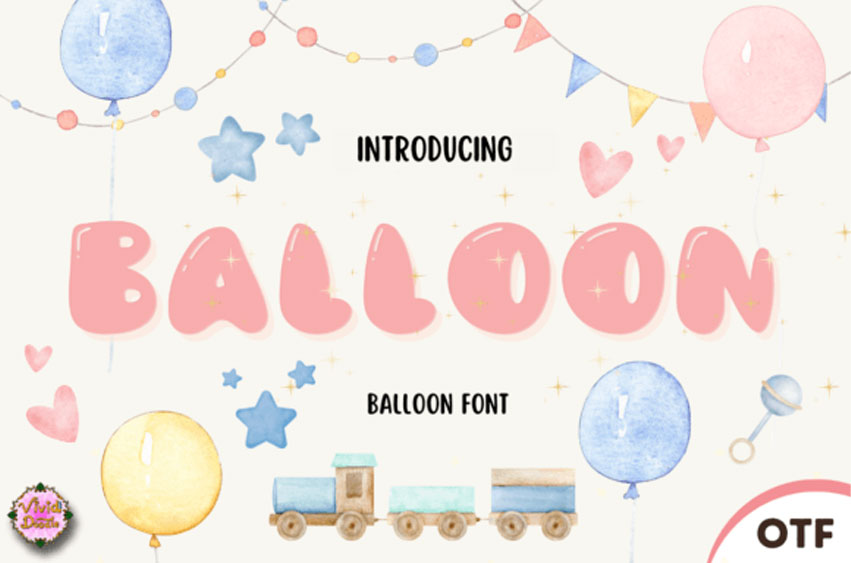
Balloon Font Engage your senses with Balloon font, a breath of fresh vitality for any inventive initiative. Adorned with a joyous persona, Balloon font resounds an exuberant symphony, reminiscent of a joyous fiesta. The distinctive design, inspired by buoyant balloons, marries perfectly with themes of childlike innocence, cheerful birthday spirits, or festive carnival vibes.
Infuse your creations with the merry charm of this delightful typeface that radiates warmth and ingeniousness, embedded in each character. If your project requires a sprinkle of fantasy, a ripple of laughter, or an explosion of color, Balloon triumphantly steps up. Let Balloon font lift your words, giving them a graceful flight!